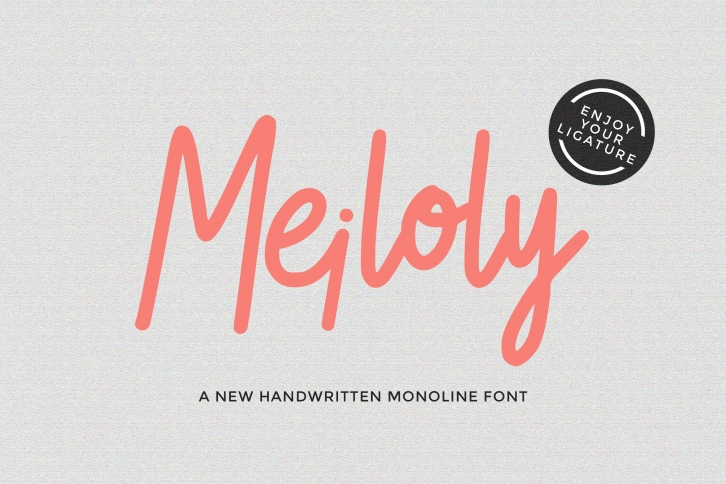
MEILOLY - Handwritten Monoline Script FONT Download
MEILOLY is a gorgeous font that was realeased on November 11, 2020. The font can be used in many style contexts and design environments. Perfect for invitations, magazines, websites, logos, and more! It was designed by DYSA Studio and the file size is 17.47 MB. Thanks for checking out this font!